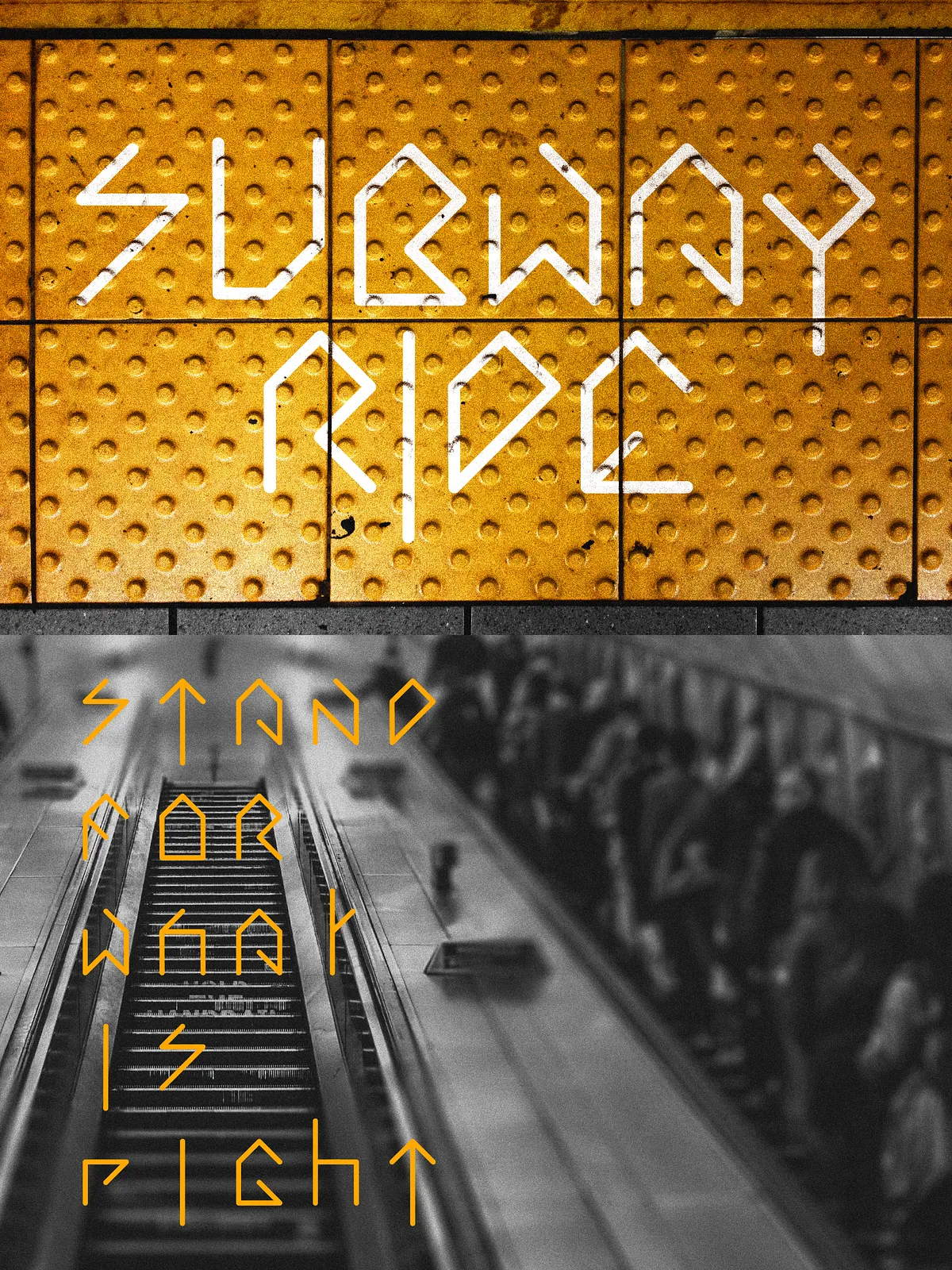
Channel the raw energy, sharp lines, and relentless rhythm of New York City’s subway system with the New York Subway Font — a striking urban typeface built for impact. This isn’t just a font; it’s a visual manifesto of street culture, where every character pulses with the tension of late-night trains, graffiti tags, and city-lit alleyways.
Designed for creative minds who demand presence and power, this font comes in two dynamic styles: regular for expressive layouts and monospace for high-contrast typography that commands attention. From subway maps to fashion posters, from streetwear branding to digital splash art, this typeface elevates urban themes with precision, authenticity, and unmatched character.
Features That Define Street-Level Excellence
Every detail in the New York Subway Font has been engineered to serve the urban aesthetic — strong, clean, and fearless.
• Dual-Style Mastery: Regular & Monospace
- Regular Style — Ideal for headlines, taglines, and expressive layouts that need to breathe. Dynamic spacing and confident stroke work maximize visual rhythm.
- Monospace Version — Perfect for code-inspired design, grid-heavy layouts, and typographic installations where alignment and consistency are everything. Every character holds its width with authority.
• Full Character Support with Stylish Accents
- Comprehensive punctuation system including em dashes, ellipses, quotation marks, and brackets
- Accented characters for English, Portuguese, and Spanish users — designed to maintain the urban aesthetic even in multilingual projects
- OpenType features include ligatures, alternate glyphs, and stylistic sets for advanced typographic control
• Engineered for Street-Style Impact
- High-contrast strokes deliver visual weight and drama
- Geometric structure ensures sharpness at any scale — from small icons to massive murals
- Optimized spacing prevents crowding, allowing your message to breathe in bold, legible lines
Where This Font Owns the Streets
Whether you’re designing for print or digital, the New York Subway Font thrives in high-impact environments where attention is the currency.
- Urban Poster & Billboard Design — Make your campaigns explode on city walls with fonts that scream authenticity.
- Splash Art & Event Promotion — Create visual excitement for music gigs, pop-up shops, or underground exhibitions.
- Streetwear & Apparel Branding — Imprint urban identity onto tees, hoodies, caps, and accessories with instant street cred.
- Digital Content & Social Media — Boost engagement on Instagram, TikTok, and YouTube with bold, eye-grabbing headlines and captions.
- Logo & Identity Design — Build a brand that feels lived-in, real, and rooted in urban culture.
- Editorial & Zine Typography — Bring raw authenticity to independent publications and self-published stories.
Dare to be different. Break free from generic design. Let the New York Subway Font carry your message like a subway train rushing through midnight — unstoppable, undeniable, and unforgettable.